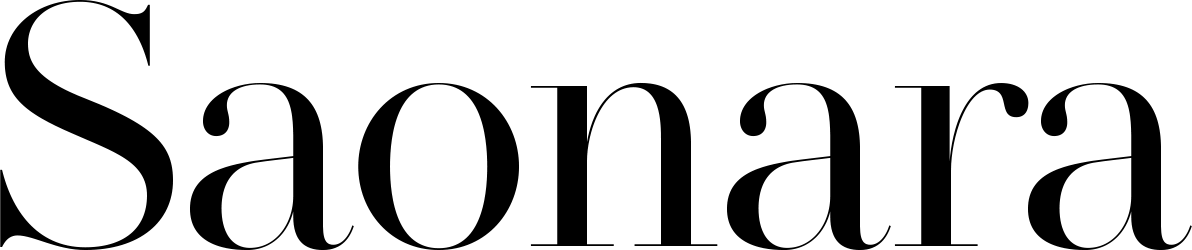
MADE Saonara Font
MADE font Saonara is a highly fashionable serif font that is obtainable in 2 styles which are perfect for practically any design! By utilizing it your typography will be a real beauty, specifically with its top quality, elegant characters that are stylish and give a contemporary, proficient feel.
As always serif fonts are brilliant for anywhere you wish for a reliable, relaxed approach. This MADE Saonara font contains mixed letters, numbers, and punctuation. It’s best for journals, photography, brochures, presentations, textbooks, and cosmetics.
MADE SAONARA is inspired by fashion.*
The SAONARA will perfect for many project: fashion, magazines, logo, branding, photography, wedding invitations, quotes, blog header, poster, advertisements, etc.
*Inspired by ZARA Logo.